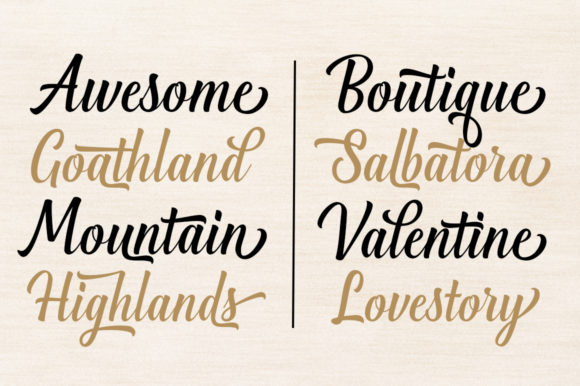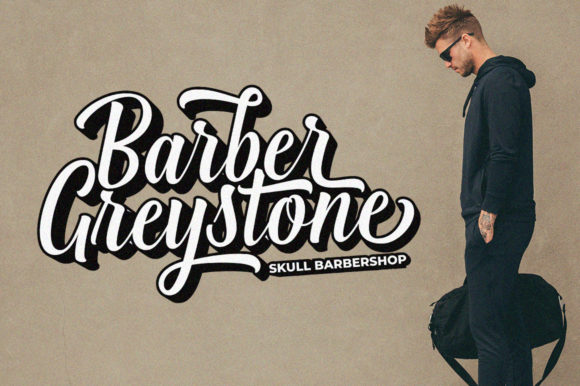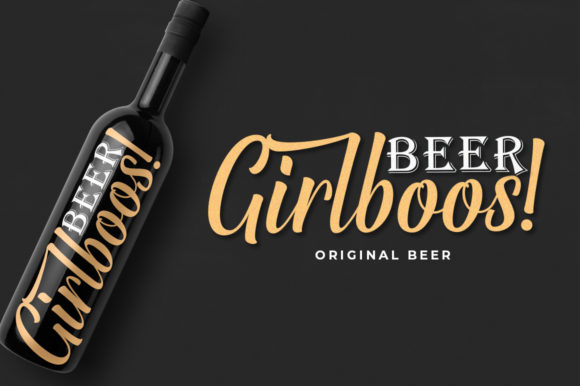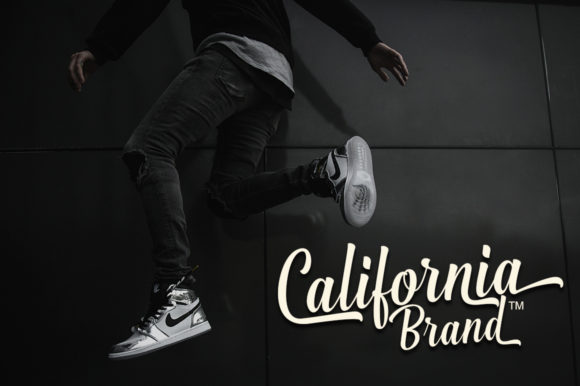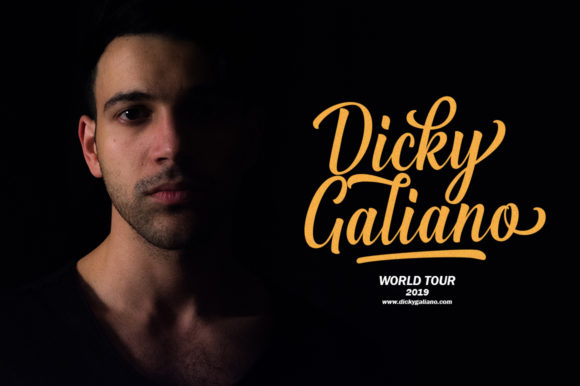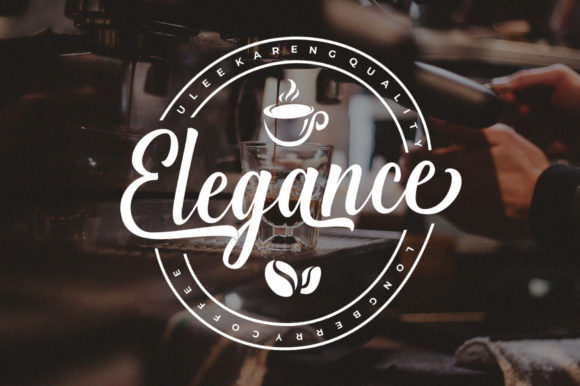
Introducing Greenlight Script Font: The Perfect Addition to Your Design Projects
Are you tired of using the same old fonts in your design projects? Look no further! The Greenlight Script Font is here to breathe new life into your creations. This fresh and modern script font boasts a vintage and neat style that’s perfect for a wide range of applications. In this article, we’ll dive into the features and benefits of the Greenlight Script Font and explore how it can elevate your designs.
A Fresh Take on Script Fonts
The Greenlight Script Font is a new and exciting addition to the world of typography. Its unique blend of vintage charm and modern flair makes it an excellent choice for designers looking to add a touch of elegance and sophistication to their work. With its clean lines, flowing curves, and precise lettering, Greenlight is sure to make a statement in any design project.
What Makes Greenlight Script Font So Versatile?
One of the standout features of the Greenlight Script Font is its incredible versatility. Whether you’re working on a wedding invitation, greeting card, branding materials, business card, quote, poster, badge, or vintage logo, this font is sure to fit the bill. Its adaptability is due in part to its:
- Legibility: Greenlight is easy to read, even at smaller font sizes, making it perfect for body text or captions.
- Expressiveness: The font’s flowing curves and varied letterforms add a touch of personality to any design.
- Customizability: Greenlight can be easily paired with other fonts to create a unique look that suits your project’s needs.
The Greenlight Script Font is a dream come true for designers and crafters looking to add a professional touch to their work. With Greenlight, you can:
- Create stunning wedding invitations that set the tone for a special day.
- Design eye-catching greeting cards that will leave a lasting impression.
- Develop a strong brand identity with custom branding materials that reflect your unique style.
- Stand out with custom business cards that showcase your professionalism.
Why Choose Greenlight Script Font?
With so many fonts on the market, why choose Greenlight Script Font? Here are just a few reasons:
- Unique style: Greenlight’s vintage-meets-modern aesthetic is sure to set your designs apart.
- Ease of use: This font is incredibly easy to use, even for those new to design.
- High-quality design: Greenlight has been carefully crafted to ensure that every letterform is precise and visually appealing.
Tips for Using Greenlight Script Font
To get the most out of the Greenlight Script Font, here are a few tips to keep in mind:
- Experiment with font sizes: Greenlight looks great at a range of font sizes, from small captions to large headings.
- Pair with complementary fonts: Try pairing Greenlight with a clean sans-serif font for a striking contrast.
- Play with color: Greenlight looks great in a range of colors, from bold brights to muted pastels.
The Greenlight Script Font is an exciting new addition to the world of typography. With its unique blend of vintage charm and modern flair, this font is sure to elevate your design projects to the next level. Whether you’re a designer, crafter, or DIY enthusiast, Greenlight is the perfect choice for anyone looking to add a touch of elegance and sophistication to their work. So why wait? Download the Greenlight Script Font today and start creating something amazing!